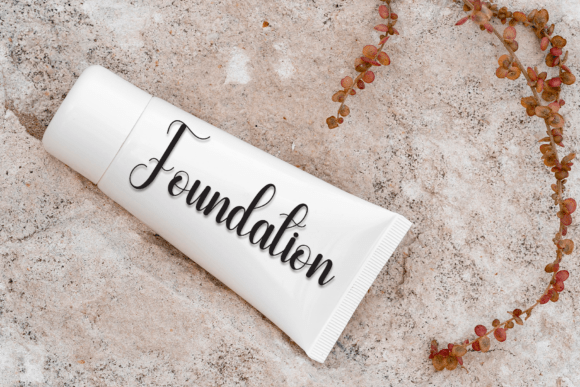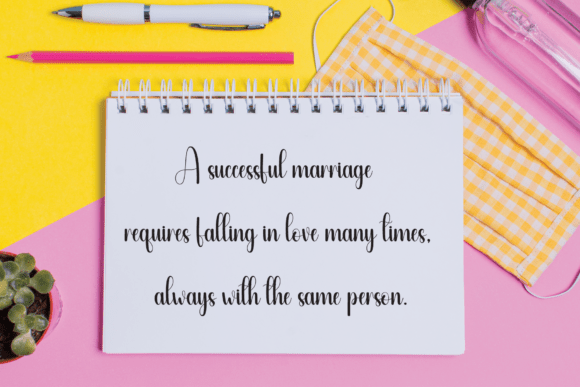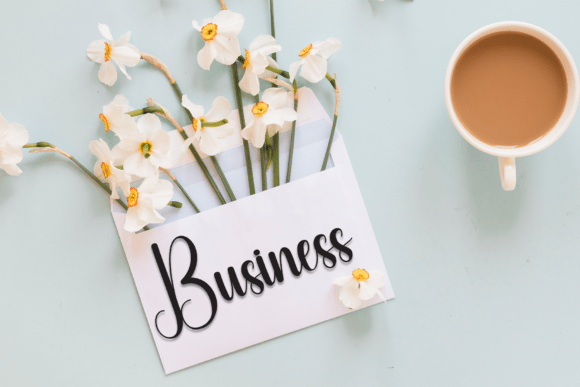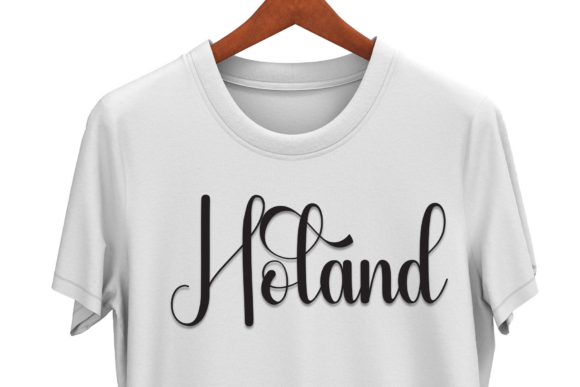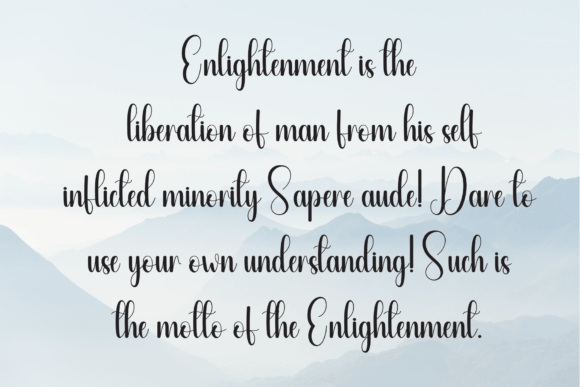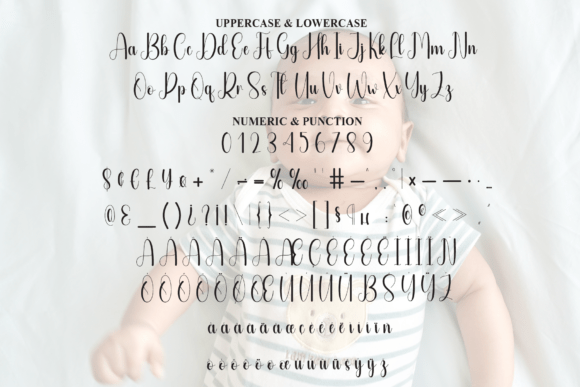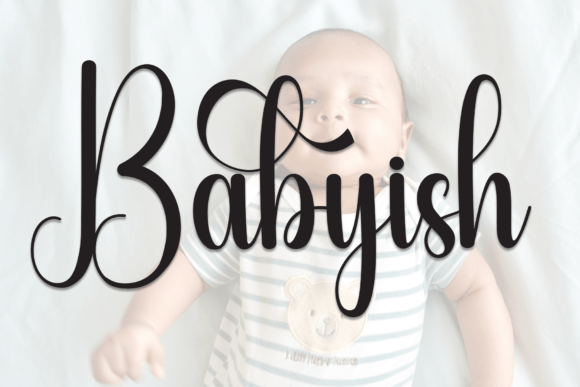
Babyish Font: Elevate Your Designs with Elegant Handwritten Script
In the world of typography, few fonts capture the essence of elegance and charm as beautifully as Babyish. This stunning handwritten script font is designed to bring a touch of sophistication and refinement to any design project. With its fluid, graceful strokes, Babyish is perfect for creating stunning branding, invitations, and stationery that exudes a sense of luxury and personality.
The Characteristics of Babyish Font
Babyish is a carefully crafted font that boasts smooth curves and a natural flow, creating a timeless and refined look for any design. Its fluid strokes are reminiscent of handwritten calligraphy, yet possess a level of precision and consistency that makes it suitable for professional use. The font’s elegant appearance is characterized by:
- Fluid, connected strokes that create a sense of movement and flow
- Smooth curves and rounded edges that add a touch of softness and approachability
- A natural, handwritten feel that conveys warmth and personality
- A refined and sophisticated aesthetic that elevates any design
Uses of Babyish Font
Babyish is an incredibly versatile font that can be used in a wide range of design applications. Some of the most popular uses of this elegant font include:
- Branding: Create a lasting impression with Babyish, perfect for logos, business cards, and brand identity materials
- Invitations: Add a touch of elegance and sophistication to wedding invitations, birthday party invites, and other special occasion cards
- Stationery: Elevate your stationery designs with Babyish, ideal for letterheads, notebooks, and journals
- Packaging: Use Babyish to create eye-catching packaging designs that stand out on store shelves
Why Choose Babyish Font?
With so many fonts available, why choose Babyish for your design projects? Here are just a few reasons why Babyish stands out:
- Unique and distinctive: Babyish offers a fresh and unique take on traditional handwritten script fonts
- Elegant and sophisticated: This font exudes refinement and luxury, perfect for high-end designs and brands
- Versatile: Babyish can be used in a wide range of design applications, from branding to packaging
- Easy to read: Despite its elegant appearance, Babyish is surprisingly easy to read, making it perfect for body text and headlines
Tips for Using Babyish Font
To get the most out of Babyish, here are a few tips to keep in mind:
- Pair with contrasting fonts: Combine Babyish with bold, sans-serif fonts to create visual interest and contrast
- Use for headlines and titles: Babyish is perfect for headlines and titles, where its elegant appearance can shine
- Experiment with colors: Try pairing Babyish with a range of colors, from rich jewel tones to soft pastels, to create a unique look
Babyish is a truly exceptional font that offers a unique blend of elegance, charm, and sophistication. With its fluid strokes, smooth curves, and natural flow, this stylish handwritten script font is perfect for designers and crafters looking to elevate their designs. Whether you’re creating branding materials, invitations, or stationery, Babyish is sure to make a lasting impression.